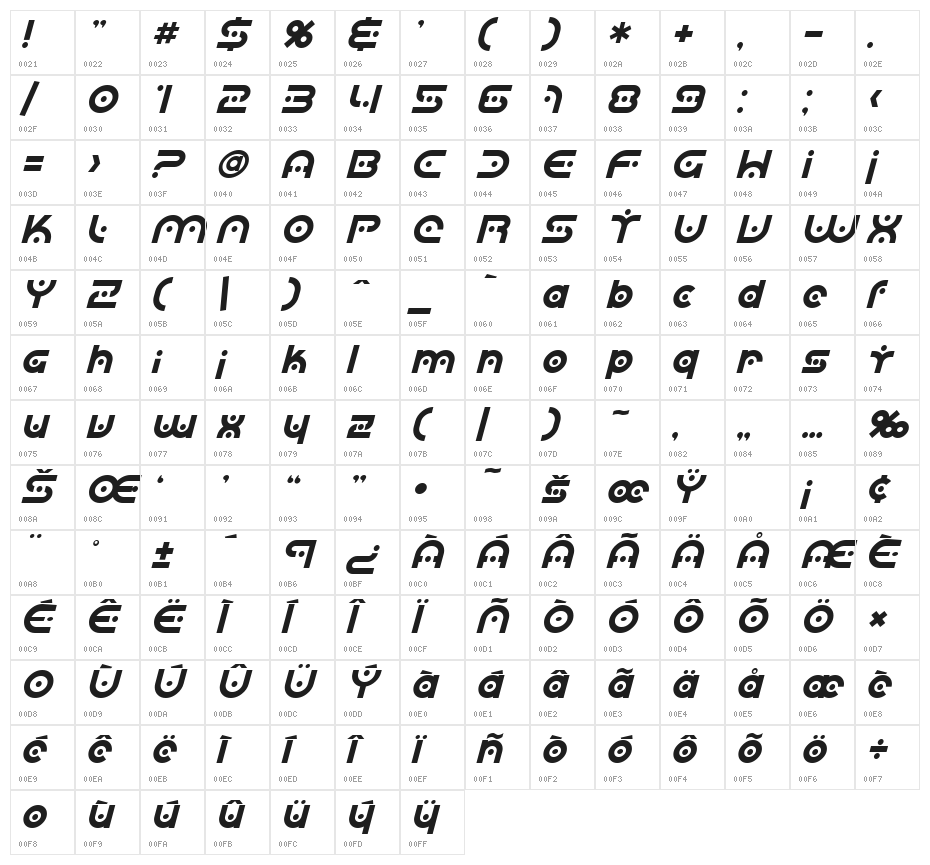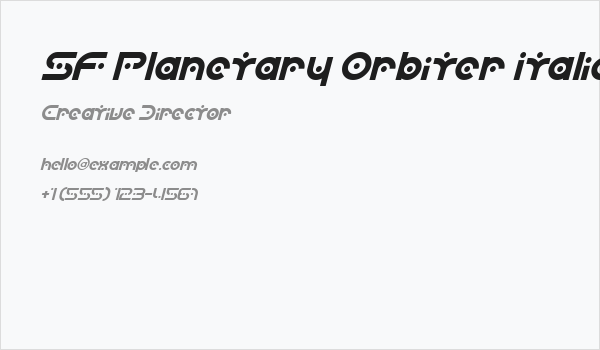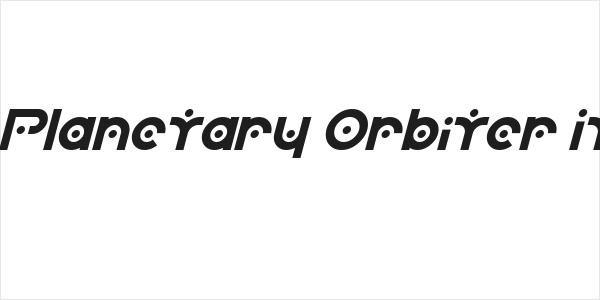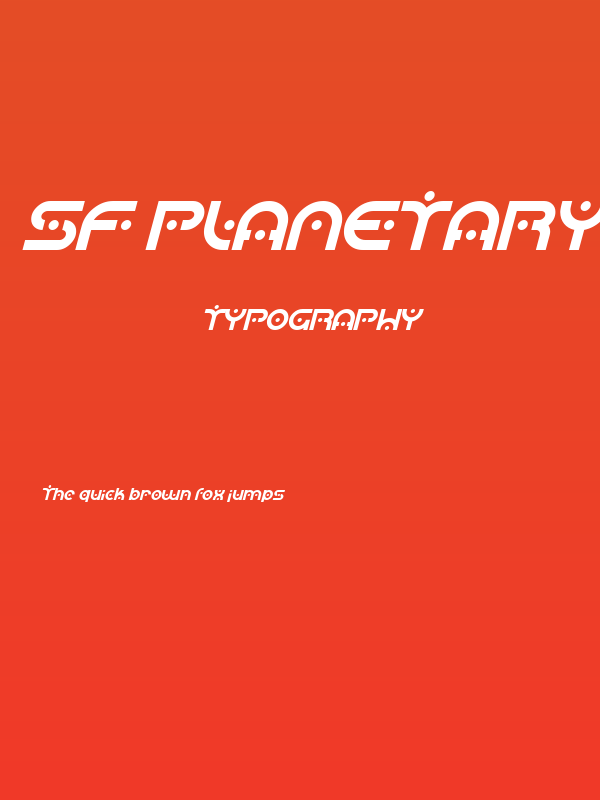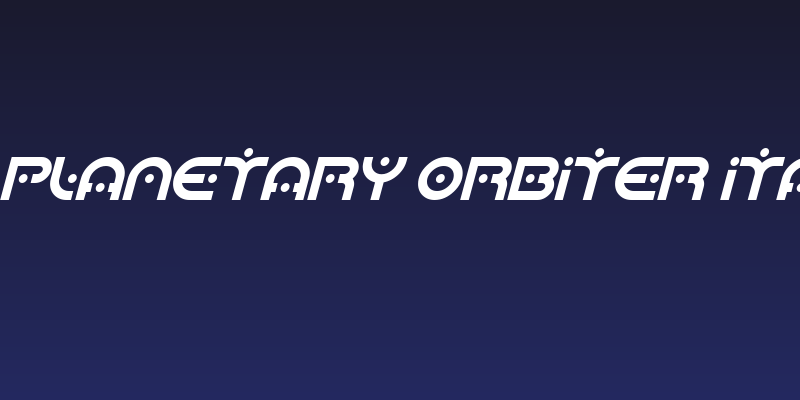
SF Planetary Orbiter Italic Font
SF Planetary Orbiter Italic Description
This font features a futuristic and dynamic design, characterized by its bold and italicized letterforms. The characters are uniquely crafted with geometric shapes and rounded edges, giving it a sleek and modern appearance. The inclusion of dots and lines within the letters adds a distinctive, space-age aesthetic. The numbers and special characters maintain this cohesive style, ensuring a consistent look across all text. Its bold weight and italic slant enhance its visual impact, making it ideal for attention-grabbing designs.
| Proposed Projects | Ideal for sci-fi themed projects, technology branding, video game titles, and futuristic posters. |